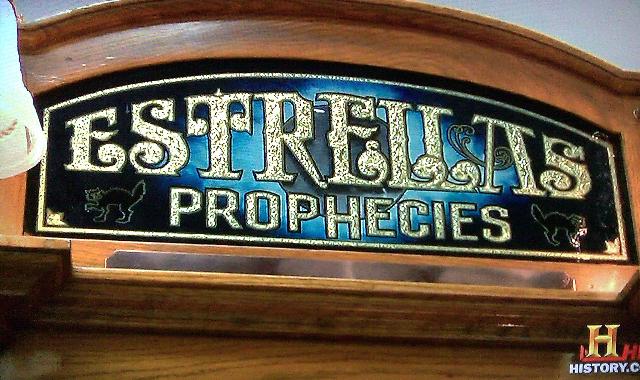
Did anyone see Pawn Stars last night on the History Channel? Sure looked like some Rick's work there, especially Estrella the fortune teller. Lots of great memories in those glass pieces.
Wonder who's collection those pieces came from?
What all did they show, and what did they say about them?
Don't worry about getting to see it... they rerun Pawn Stars a lot. I'll sure look a lot closer next time Estrella comes around.
Fellas, I saw the show and was able to get a picture from the TV. I knew you guys would want to see it. I think the teller sold for 8500.00. Great looking glass I love the black cats!
Unfortunately there was no mention of Rick or where the fortune teller came from. But I definately recalled seeing that glass piece when Rick was working on it. The other items were not auctioned off on the program, but were hung on the wall to the left of auctioneer. I recognized a couple of beer signs that sure looked like the ones in Rick's shop. At any rate no specifics, that would interest us, were given, but I'm sure that most of those items were either from Rick's shop or one of his clients.